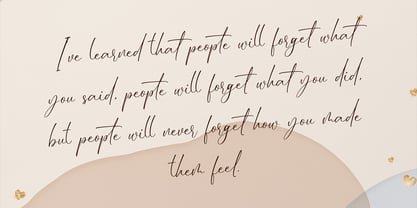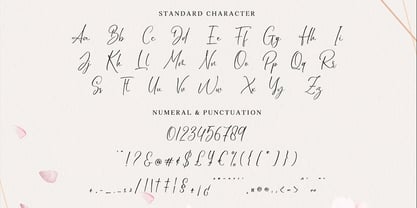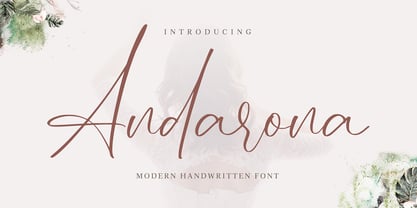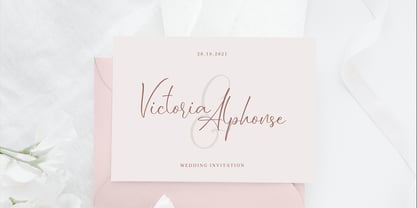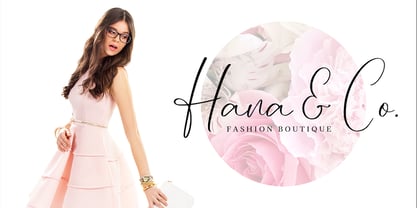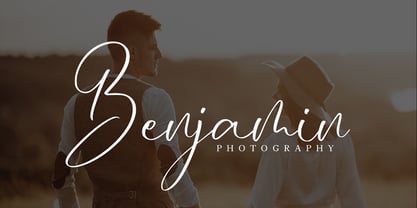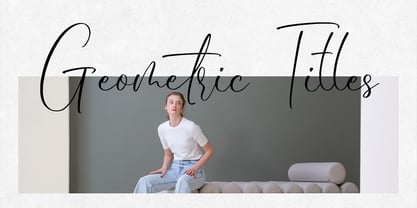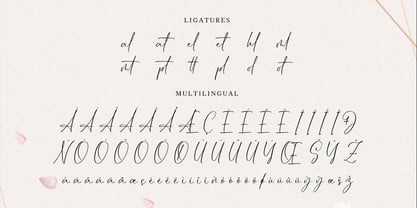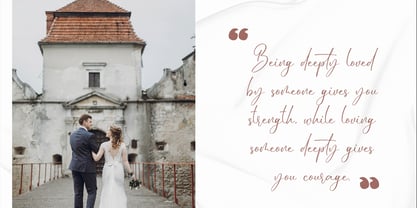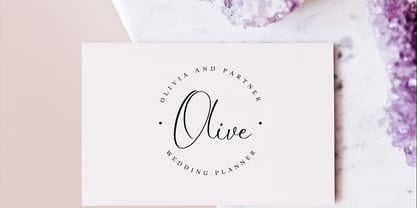
Andarona
by Geelator Studio
The Andarona Font Family was designed by Gilang Tito Dharmawan and published by Geelator Studio. Andarona contains 1 styles. More about this family
Introducing Andarona, a truly elegant handwritten script font that captures the grace and charm of classic penmanship. With its fluid strokes and beautiful ligatures, Andarona adds a touch of sophisticated romance to any design.
Timeless Branding: Create a logo or brand identity that feels both personal and luxurious.
Refined Invitations: Elevate wedding invites, event announcements, and greeting cards with a graceful, handwritten touch.
Stylish Social Media: Design eye-catching quotes and graphics that stand out with their elegant, authentic feel.
Designers: Gilang Tito Dharmawan
Foundry: Geelator Studio